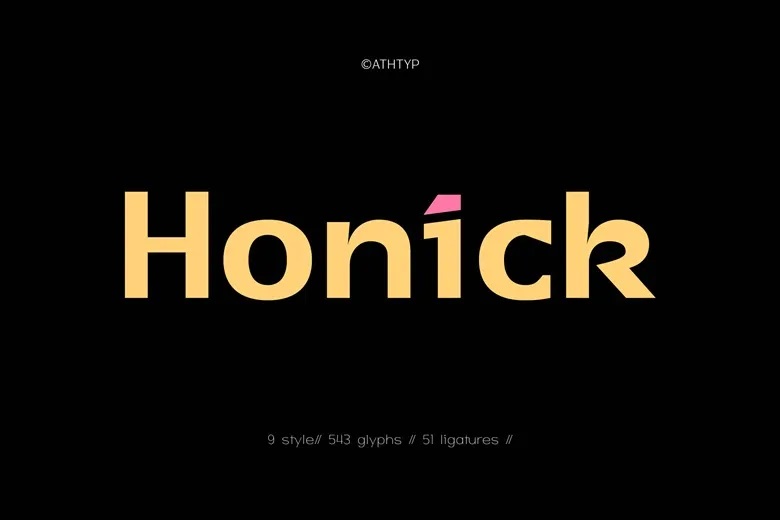
Honick Font
Honick is a clean, modern geometric sans-serif font made for designers, brands, and creatives who want their work to stand out with confident, contemporary style. It comes in nine weights, from Thin to Black, giving you plenty of options for any project, whether you need a minimalist logo or a bold headline.
The font family has 543 glyphs, 51 unique ligatures, and supports over 90 languages. Each letter is designed with smooth geometric curves and subtle, unique cuts, giving Honík a look that is both friendly and professional.
Honick Sans Serif Font